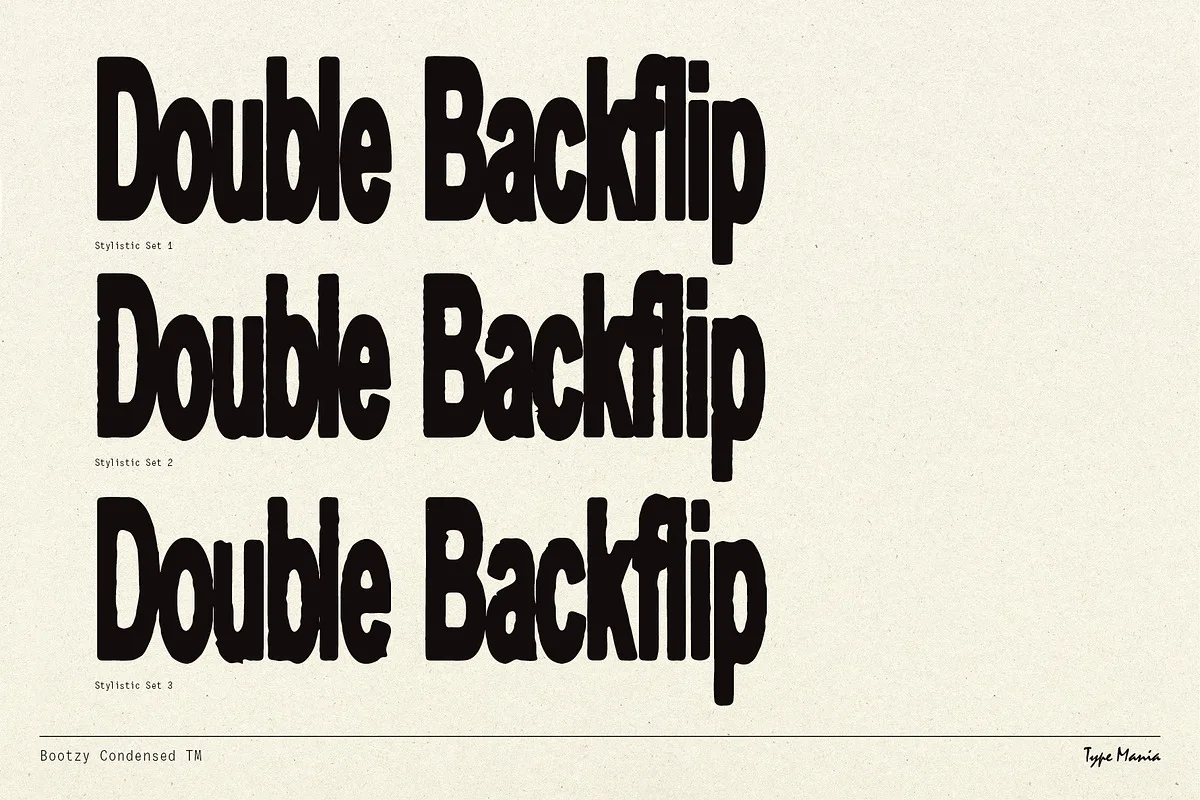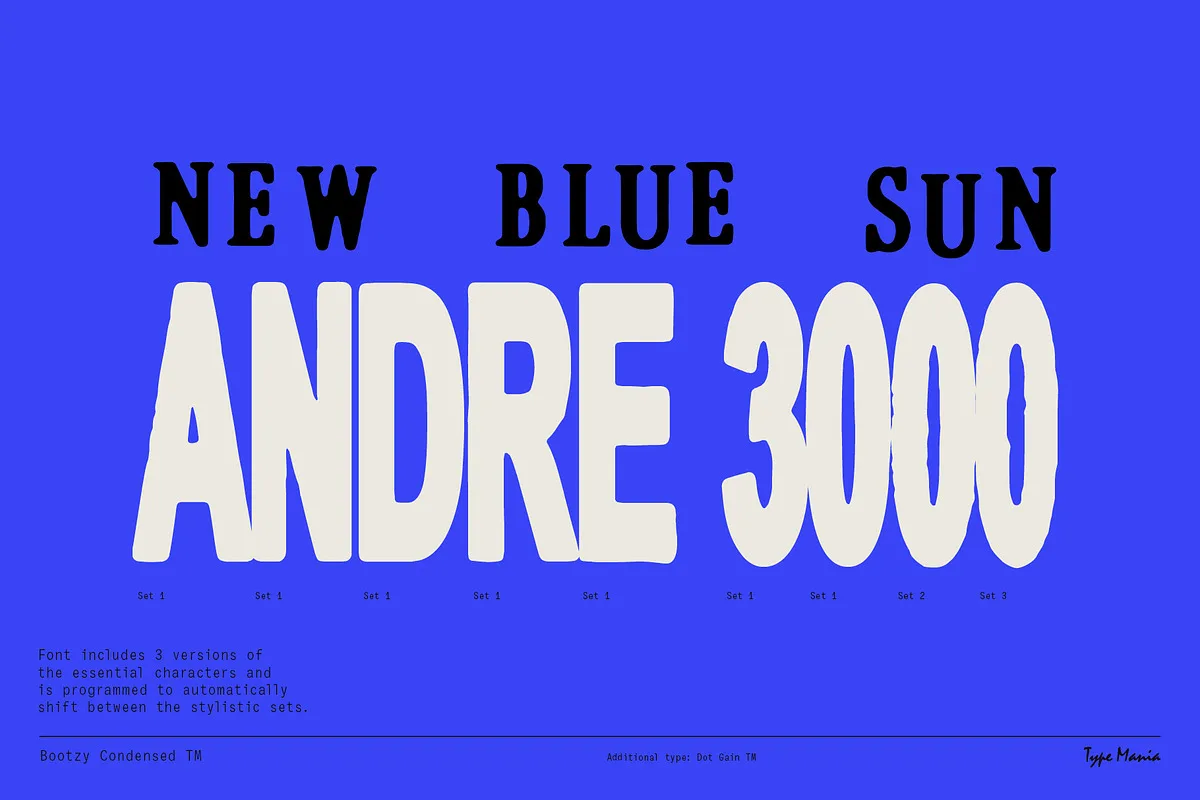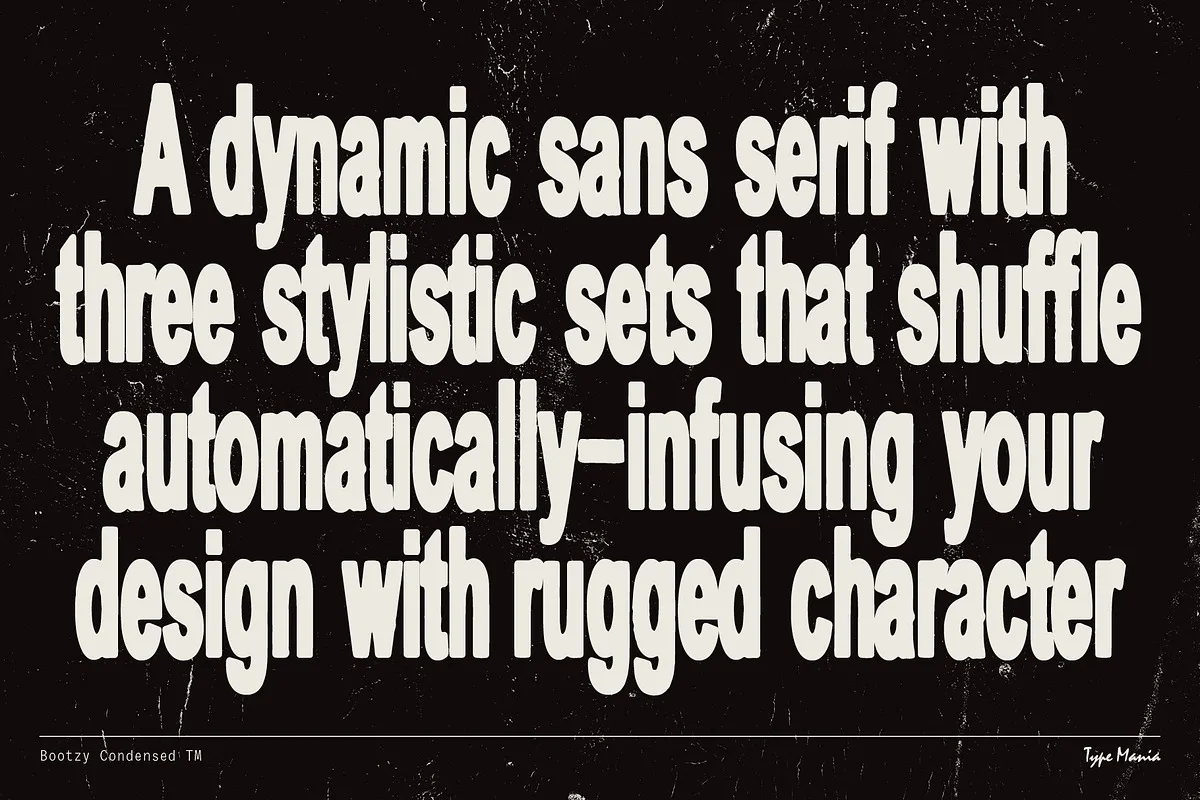
Bootzy Condensed is a rugged display sans serif born from and for the creative underground. Inspired by the DIY ethos of bootlegging, this font is perfect for flyers, zines, and rebellious expressions all over. The font is programmed to automatically shift between the stylistic sets whenever the same glyphs are typed side by side.
Bootzy Condensed — TM Rugged Font